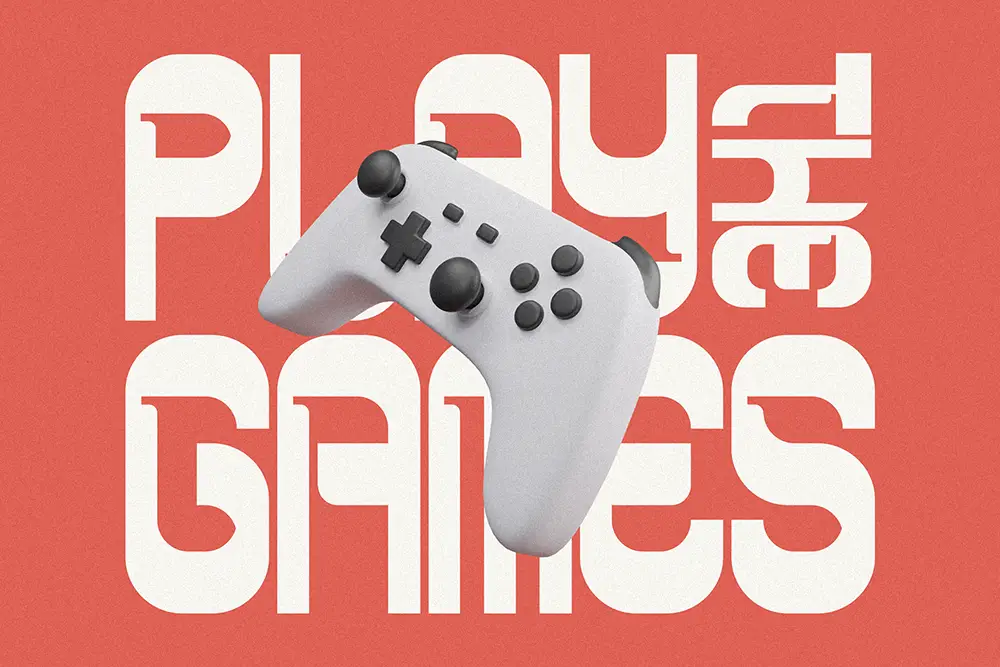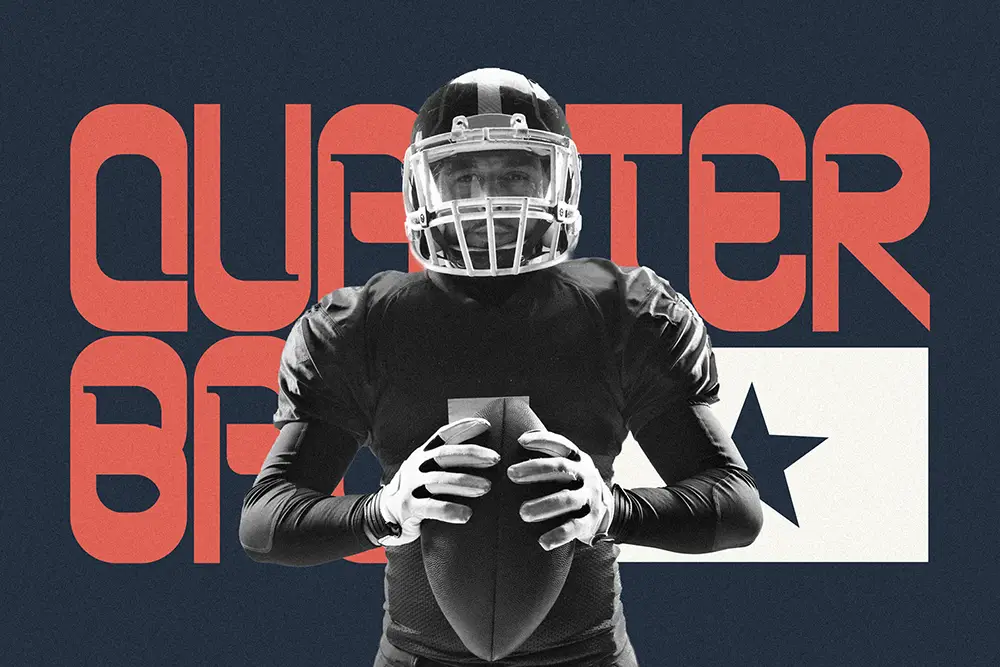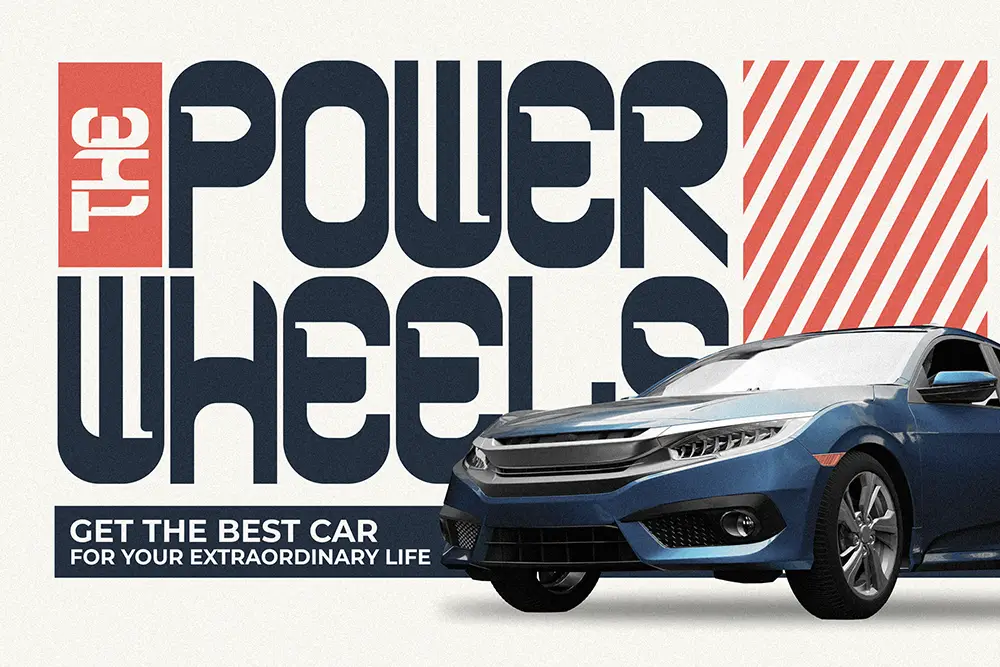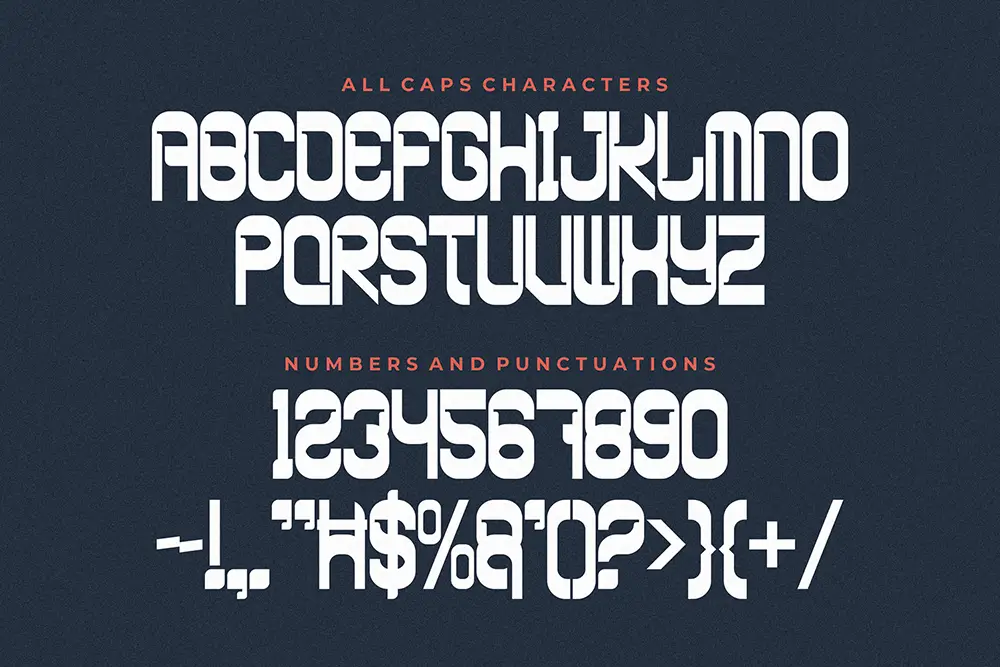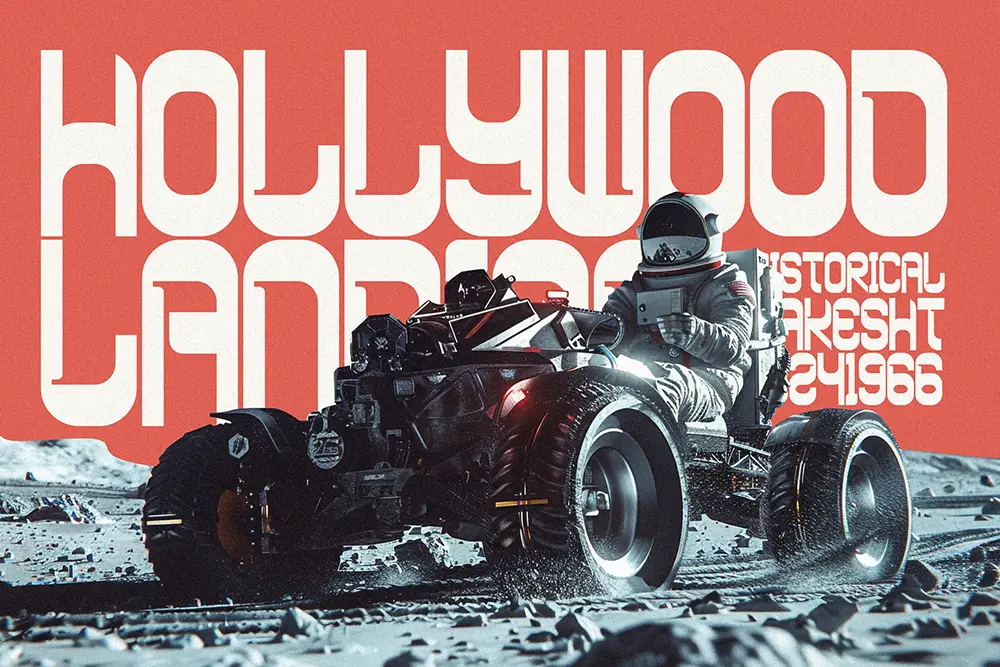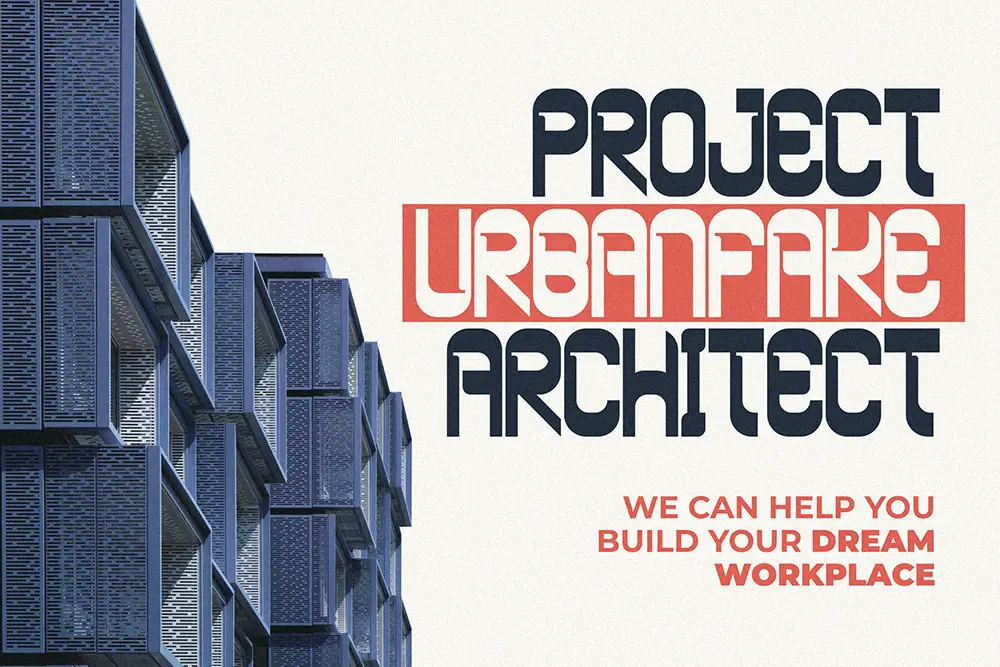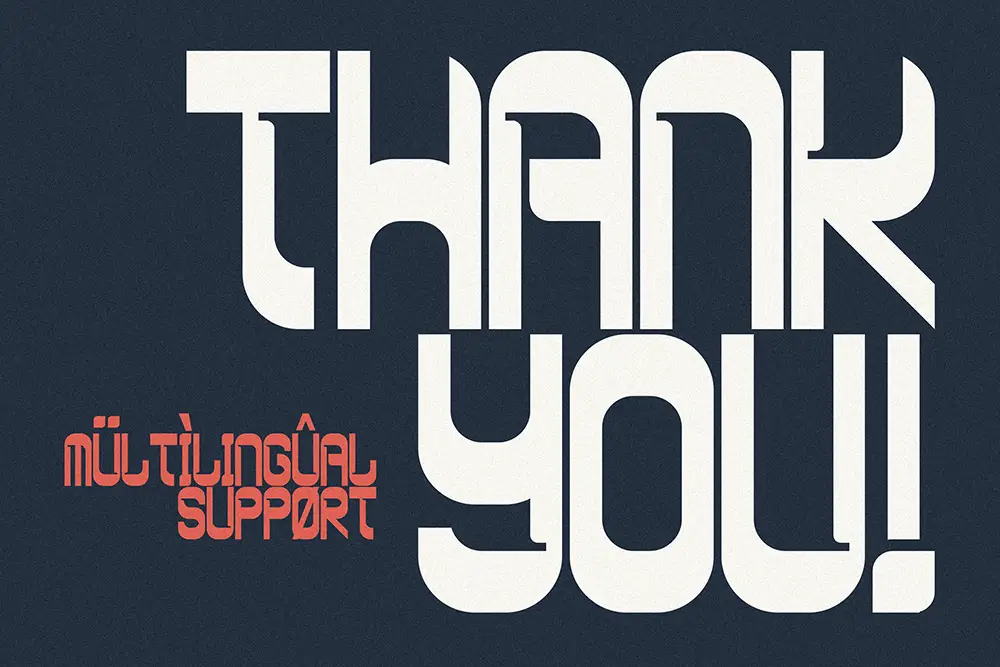
Power Strides – Powerful Display Font for Bold and Modern Design
Typography is more than just letters; it’s a voice for your brand. Power Strides – Powerful Display Font was created to give designers a typeface that radiates strength, boldness, and modern energy. This powerful display font is designed entirely in uppercase, delivering impact and authority in every character.
Whether you’re designing logos, posters, event graphics, or social media banners, Power Strides provides the clarity and dominance you need. With its geometric power and clean all caps form, this powerful display font ensures your message always stands tall.
Powerful Display Font Built for Impact
Power Strides is more than just another display typeface—it’s engineered to be a powerful display font that makes headlines pop, branding stronger, and advertising unforgettable. The bold strokes and proportional balance give it a commanding presence, while its uppercase structure communicates confidence and professionalism.
Designers across industries—from sports and technology to lifestyle branding—choose Power Strides to achieve visuals that can’t be ignored.
Key Features of Power Strides – Powerful Display Font
Every designer needs fonts that are not only stylish but practical. Here are the main features of Power Strides – Powerful Display Font:
• All Caps Design: Entire font built in uppercase for bold authority.
• Multilingual Support: Extended Latin characters for international use.
• Strong Display Style: Perfect for large titles, posters, and logos.
• High Readability: Bold without losing legibility, even at large scale.
• Versatile Applications: From branding to digital campaigns, it adapts seamlessly.
Why Designers Love Power Strides
Professional creatives love Power Strides – Powerful Display Font because it merges style with strength. It doesn’t just look powerful—it works powerfully across projects.
Here’s why it stands out:
• Commanding Presence: Its all caps design instantly grabs attention.
• Flexible Use: Works across posters, banners, and digital media.
• Pairs Perfectly: Looks amazing with script fonts like The Rughton Strong Bold Script and Graphiel Modern Bold Script.
• Professional Quality: Built for designers who want fonts with impact and reliability.
Power Strides for Logos and Branding
When building a brand, the first impression often comes from typography. Power Strides, as a powerful display font, gives logos a modern and authoritative edge. Its all caps design makes it perfect for wordmarks that need to be strong, simple, and memorable.
Pairing Power Strides with a bold script like Graphiel Modern Bold Script creates dynamic contrast—balancing raw script energy with structured uppercase power.
Power Strides for Posters and Headlines
Posters and headlines thrive on bold typography. Power Strides, being a powerful display font, is tailor-made for titles that dominate the page. Its bold uppercase structure ensures your message is the first thing audiences see.
From product launches to festival promotions, Power Strides communicates authority while staying modern and versatile.
Using Power Strides in Digital Media
In the fast-moving world of social media and online campaigns, visibility is everything. Power Strides is a powerful display font that stands out in Instagram posts, YouTube thumbnails, Twitch overlays, and website headers.
For added dynamism, pair it with The Rughton Strong Bold Script to combine bold uppercase power with expressive script energy.
• Font Name: Power Strides – Powerful Display Font
• Character Set: Uppercase, Numbers, Punctuation
• Multilingual Support: Yes
• Category: Powerful Display Font
• Best Uses: Logos, Posters, Branding, Advertising, Headlines, Digital Media
Font Pairing Suggestions
Power Strides becomes even more versatile when paired with the right fonts. Here are the top recommendations:
Combining Power Strides with these typefaces allows designers to produce branding that is powerful, modern, and unforgettable.
Why Power Strides is the Display Font You Need
Typography trends demand boldness and clarity. Power Strides embodies both. As a powerful display font, it’s more than just letters—it’s an emblem of strength and style.
Its all caps design delivers unmatched authority, while its multilingual support ensures global use. Combined with fonts like The Rughton and Graphiel, Power Strides becomes a dynamic tool for modern branding and digital campaigns.
Power Strides – Powerful Display Font is not just another typeface; it’s a design weapon for creatives who want impact, authority, and modern style. With bold uppercase letters, multilingual support, and versatile file formats, it adapts to any professional project.
If you’re ready to make your branding, posters, and digital media unforgettable, Power Strides is the font you need. Pair it with The Rughton Strong Bold Script or Graphiel Modern Bold Script for ultimate contrast.